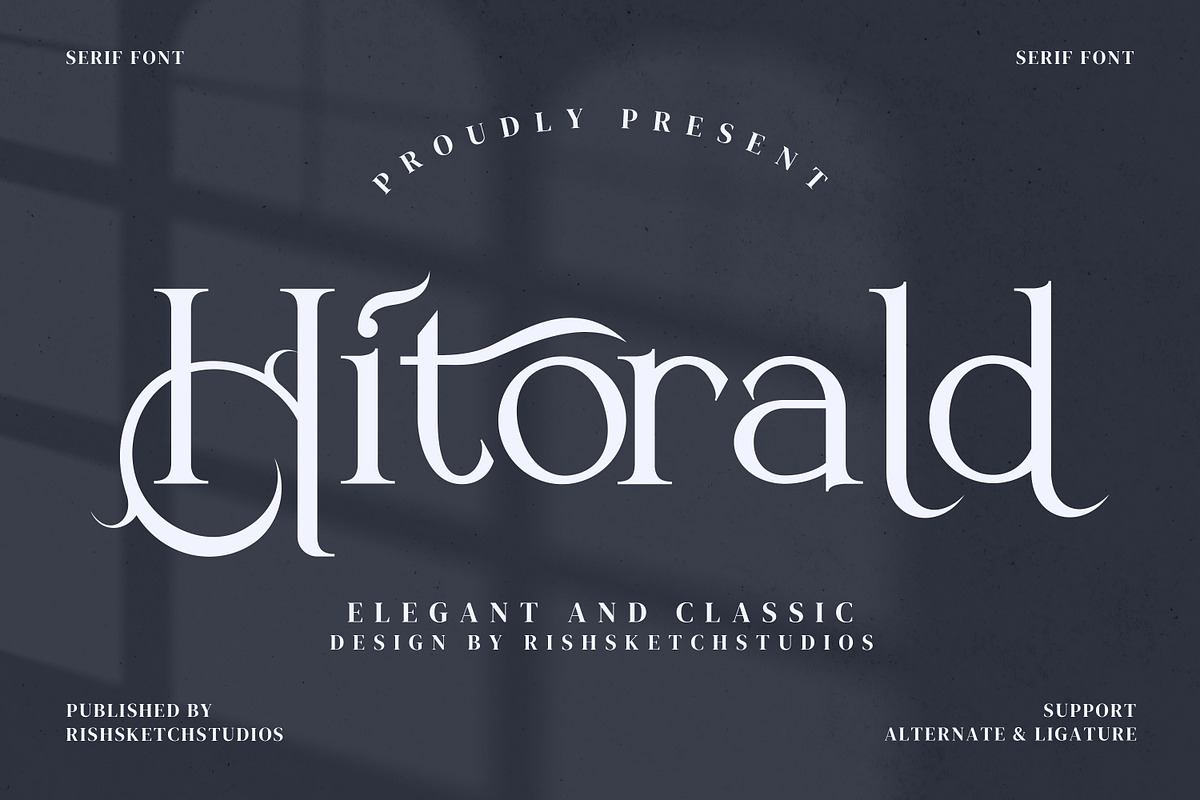
Hitorald Serif Fonts Free Download is a modern serif typeface collection that combines classic elegance with contemporary style. With its high contrast, refined curves, and distinctive letterforms, Hitorald is perfect for editorial layouts, luxury branding, logo design, fashion magazines, and upscale packaging.
This font family includes multiple weights, making it easy to build a sophisticated visual hierarchy in any project. Its timeless appeal works beautifully in both large headlines and smaller text, maintaining clarity and class across all platforms.